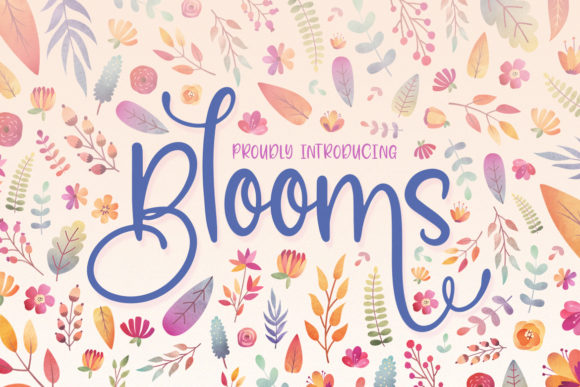
The Sweet Delight of Blooms Font: A Designer’s New Best Friend
I still remember the design project that led me to discover Blooms Font. I was working on a wedding invitation suite, and my client wanted a font that was both elegant and playful. I had spent hours scouring the internet for the perfect match, but nothing seemed quite right. That was when I stumbled upon Blooms Font, and it instantly became my go-to choice. Its sweet and joyful handwritten style perfectly captured the essence of the wedding celebration, and my client loved it!
An Honest Review of Blooms Font
What I Love About Blooms Font ✨
- 💕 Its unique, hand-crafted feel makes it perfect for projects that require a personal touch.
- ✅ The font is incredibly versatile and can be used for a wide range of applications, from logos and wedding invitations to headings and t-shirts.
- 🎉 Blooms Font comes with a range of OpenType features, including stylistic alternates and glyphs, which allow for endless creative possibilities.
- 👍 The font is easy to read and works well in both digital and print formats.
- ⚠️ Some users may find that the font is a bit too ornate for very long blocks of text.
- ⚠️ As with any handwritten font, there may be slight inconsistencies in letter spacing and sizing.
The Backstory Behind Blooms Font
Blooms Font was designed by a talented type designer who wanted to create a font that captured the joy and beauty of handwritten script. Inspired by the intricate details of nature and the elegance of handwritten calligraphy, Blooms Font is a true masterpiece of typographic design.
Q: What is Blooms Font?
A: Blooms Font is a sweet and joyful handwritten font designed for a wide range of applications, from logos and wedding invitations to headings and t-shirts.
Q: Is Blooms Font easy to read?
A: Yes, Blooms Font is easy to read and works well in both digital and print formats.